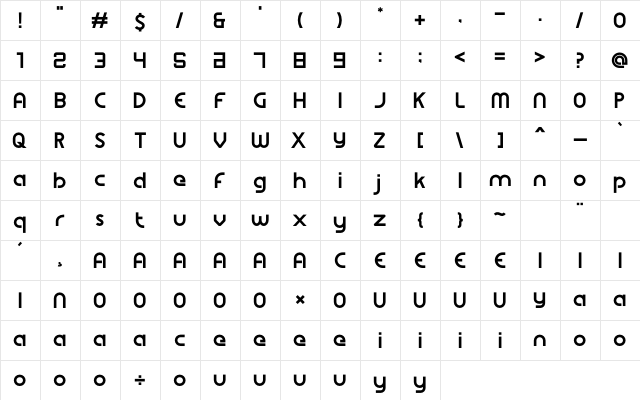
Aslina Bold
| Designer | Randy Ilhamsyah // Vasgaz Creative |
Design Context for Aslina Typeface
Aslina is a composed and adaptable typeface that performs quietly and consistently across a wide range of design contexts. Its bold stroke weight gives it real presence on the page.